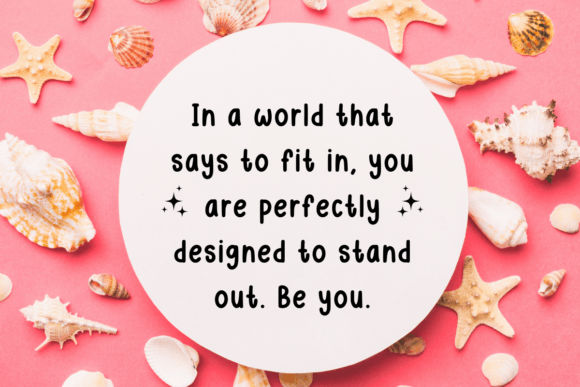
Amour Magnifique Font Font
Amour Magnifiqu is a fun cute handwritten sans serif font. Whether you’re using it for crafts, digital design, presentations, or making greeting cards, this font has the potential to become your favorite go-to font, no matter the occasion!